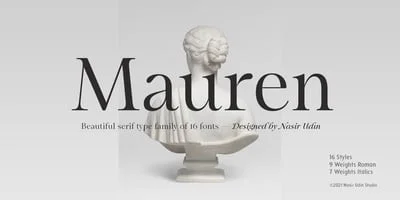
Mauren Font
Mauren Font is perfect for elegant personal branding, sophisticated women's lifestyle marketing, refined beauty salon signage, luxury fashion boutiques, graceful wedding planning services, feminine wellness campaigns, artisan jewelry packaging, upscale spa communications, elegant stationery design, and sophisticated lifestyle advertising.
What makes Mauren Font exciting is its graceful sophistication that perfectly captures the refined elegance and timeless femininity found in contemporary women's lifestyle and sophisticated personal expression. This typeface features flowing letterforms with elegant proportions and refined details that evoke the confident grace and sophisticated charm of modern feminine elegance. The font's graceful personality and feminine authenticity make it ideal for lifestyle brands seeking to convey sophistication, elegance, and the refined beauty that comes from authentic feminine expression and contemporary lifestyle refinement.
Mauren Font family includes elegant weight variations and sophisticated alternatives that enhance its feminine appeal while providing design flexibility for lifestyle and beauty applications. The font features graceful ligatures, elegant ornaments, and refined character variations that create authentic sophisticated atmosphere for feminine lifestyle and beauty branding.
Beauty brands and feminine lifestyle companies consistently choose Mauren Font for projects requiring authentic elegant appeal and sophisticated credibility. The font's graceful character excels in applications targeting sophisticated women who appreciate genuine elegance and refined lifestyle values. Whether you're designing for beauty services, feminine fashion, or elegant lifestyle products, this refined typeface delivers the feminine authenticity and sophisticated elegance that resonates with audiences seeking genuine grace and the timeless beauty that defines contemporary feminine sophistication and elegant lifestyle expression that celebrates modern women's refined taste and graceful confidence.